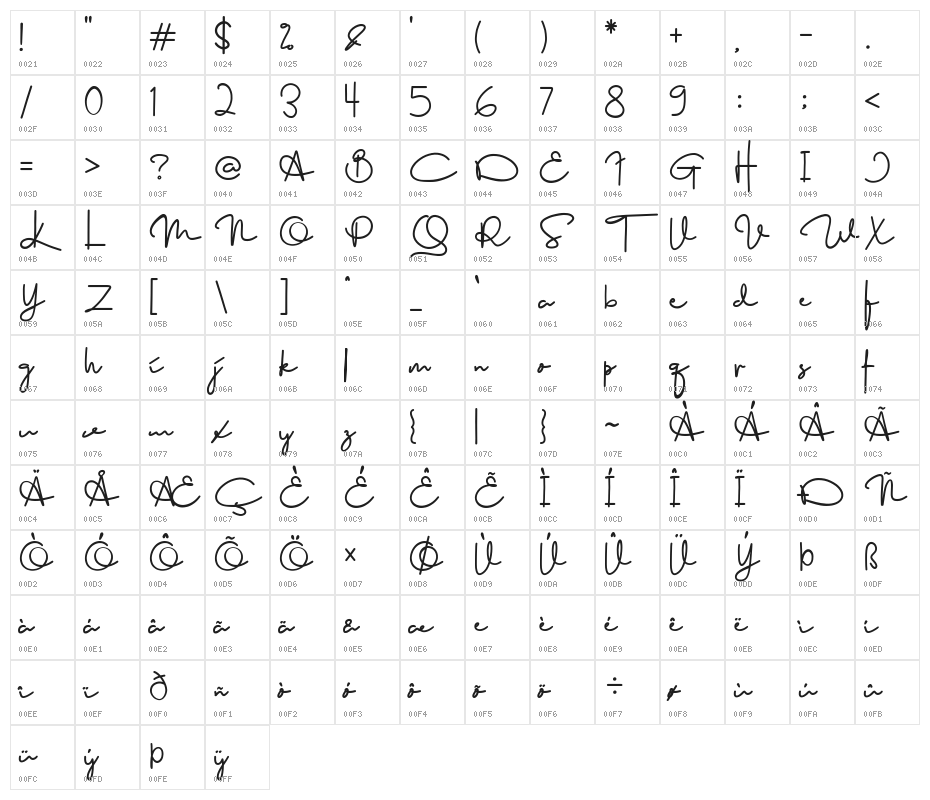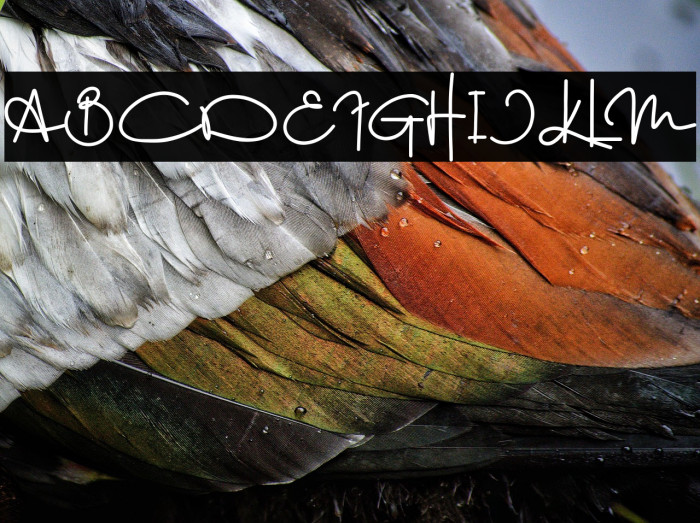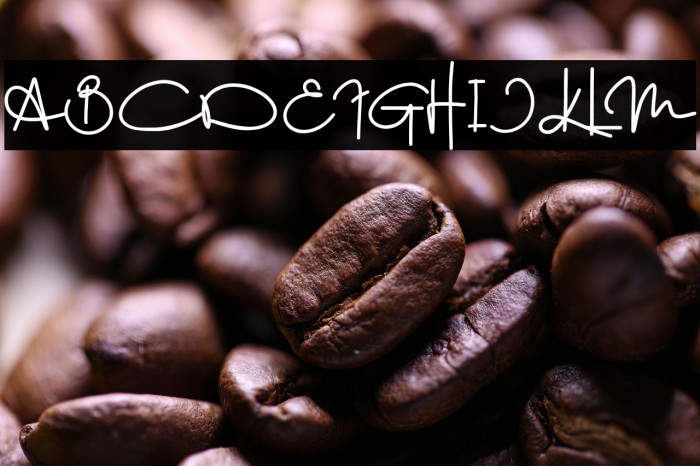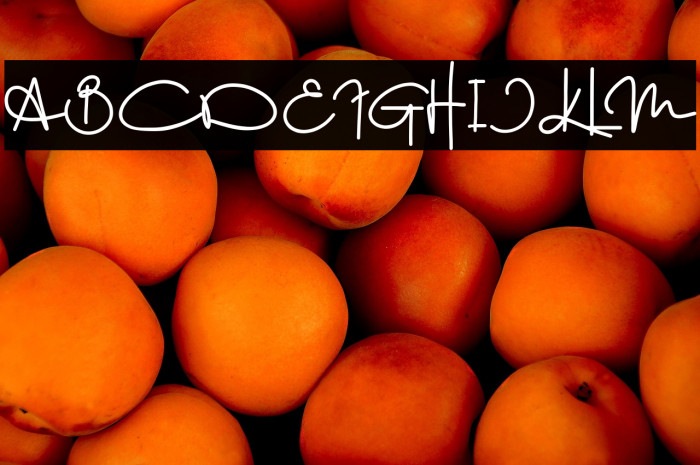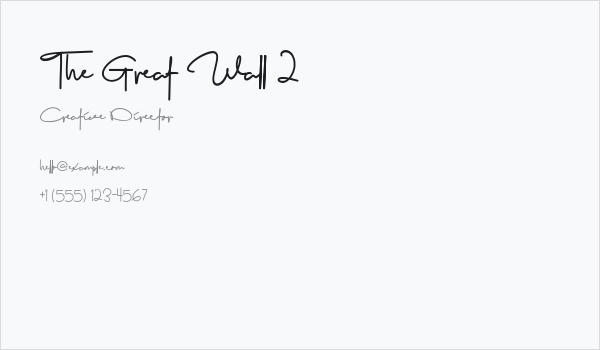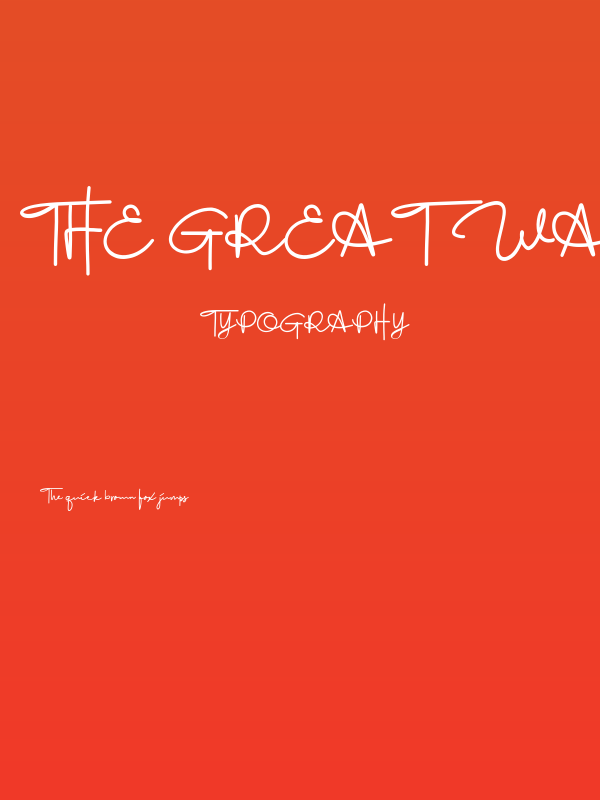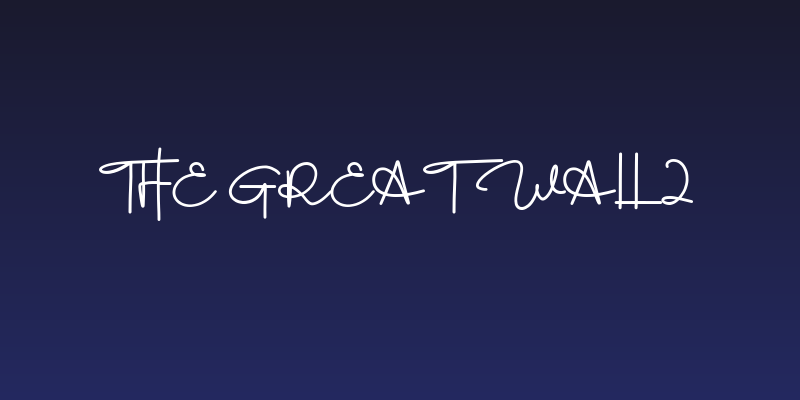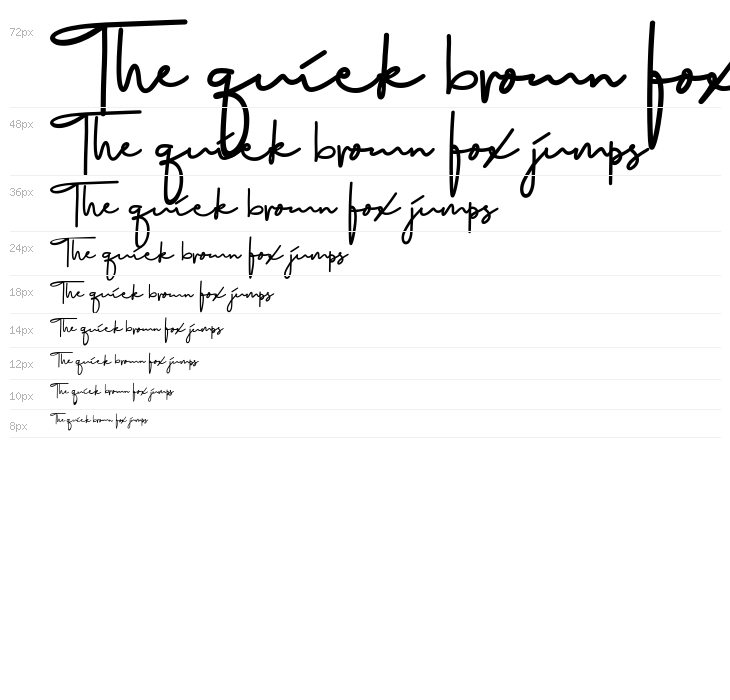
The Great Wall 2 Font
The Great Wall 2 Description
This font features a playful and casual handwritten style, characterized by its fluid and connected letterforms. The uppercase letters exhibit a whimsical, almost doodle-like quality, while the lowercase letters maintain a consistent flow, enhancing readability despite their informal appearance. The numerals are clear and distinct, matching the playful nature of the alphabet. Special characters are creatively integrated, maintaining the overall aesthetic. The strokes are consistent in thickness, providing a uniform look across all characters. This font exudes a sense of fun and creativity, making it ideal for projects that require a personal touch.
| Proposed Projects | Ideal for greeting cards, invitations, personal branding, and creative projects that require a friendly and approachable aesthetic. |